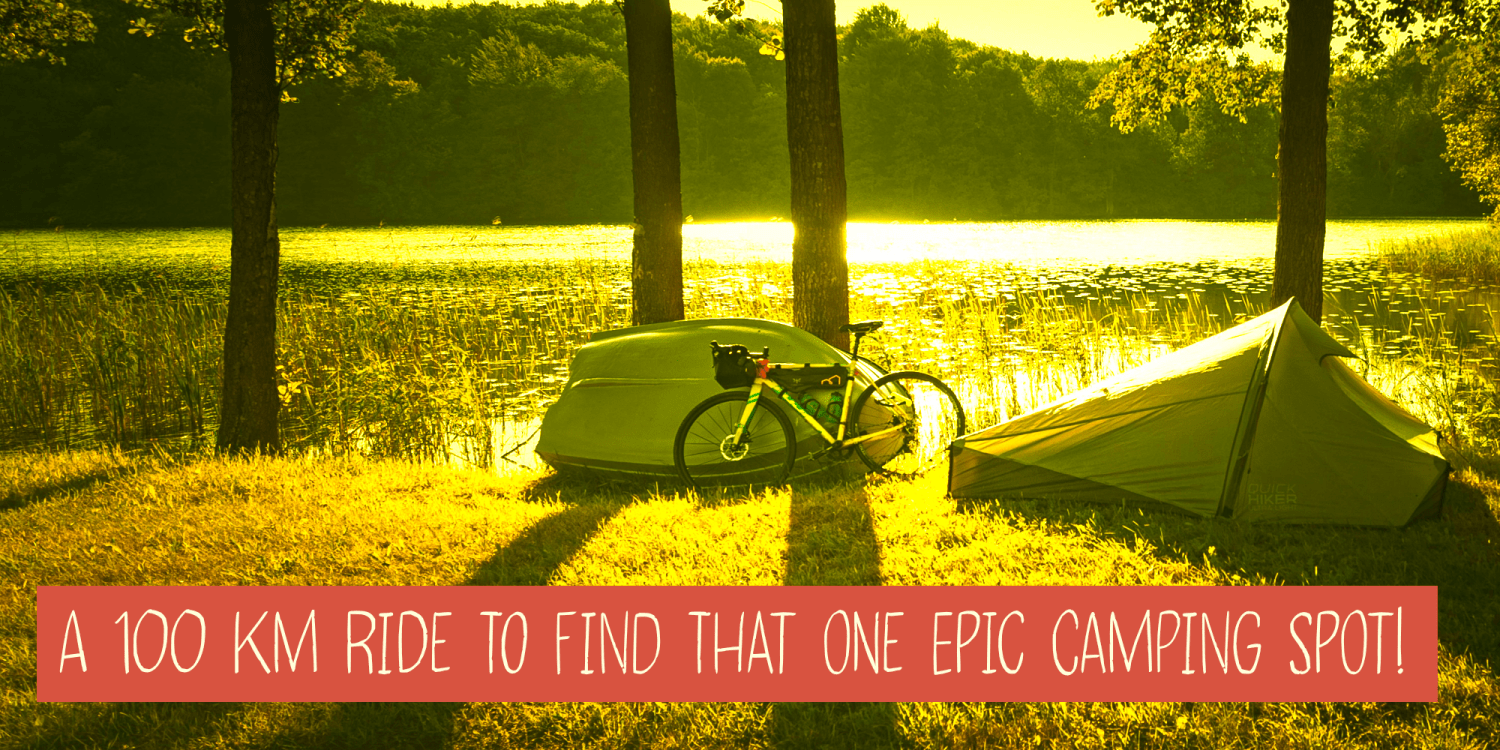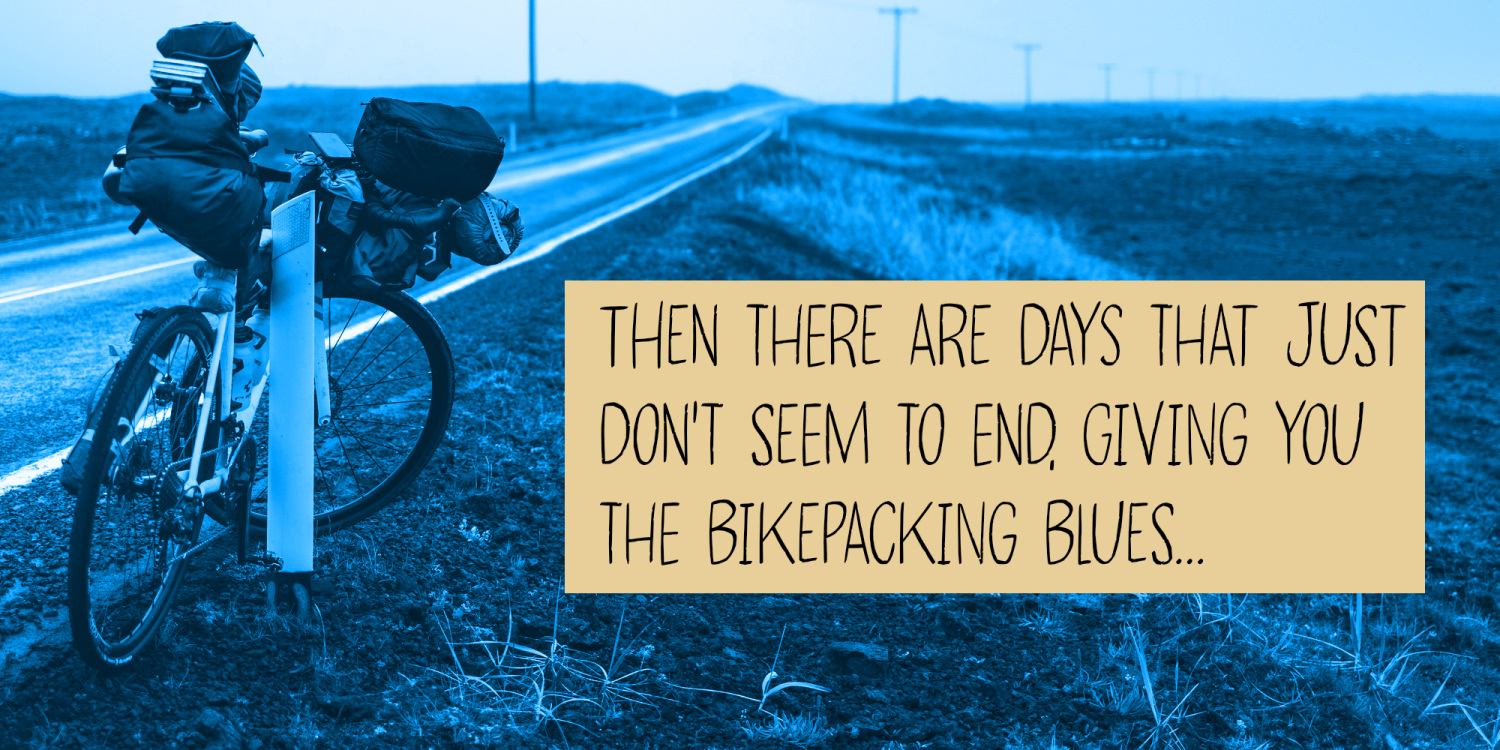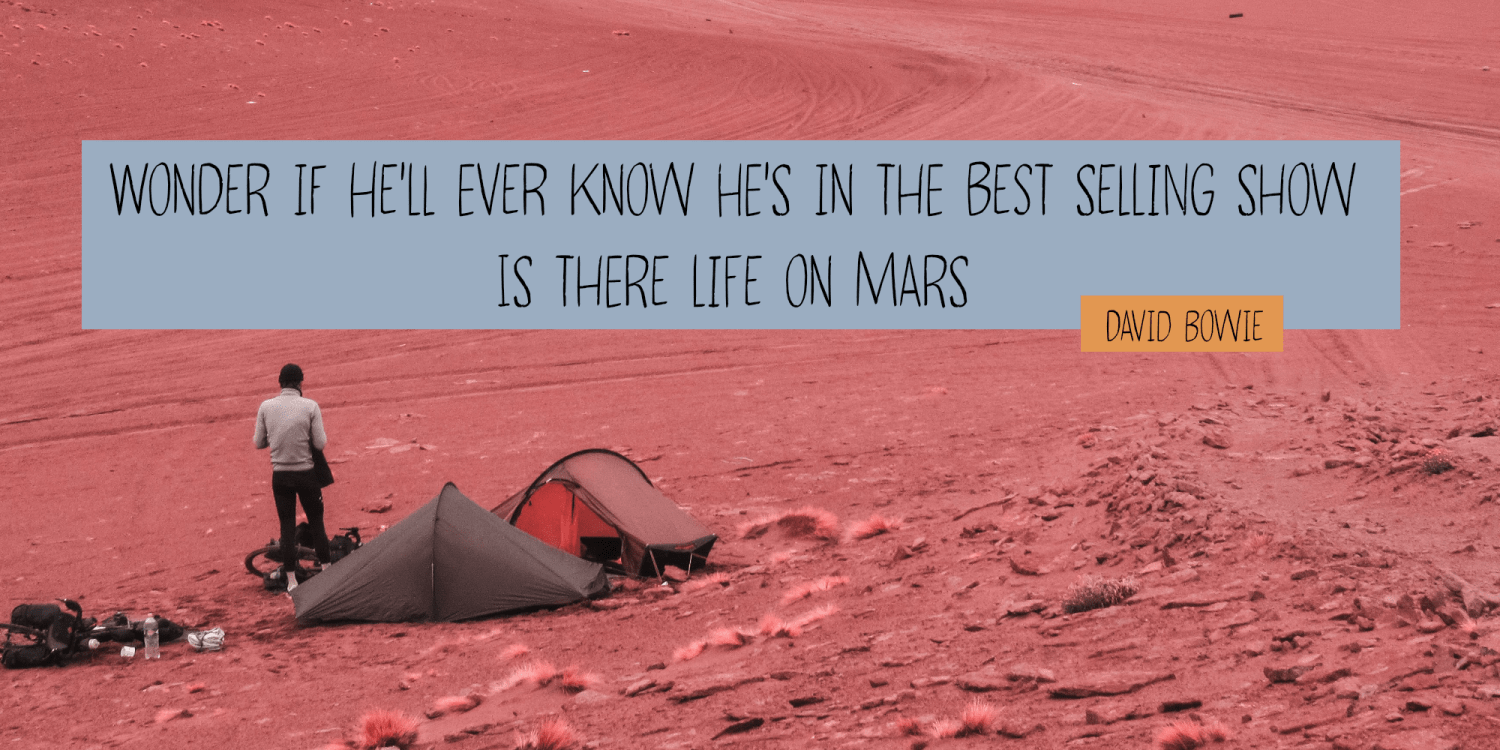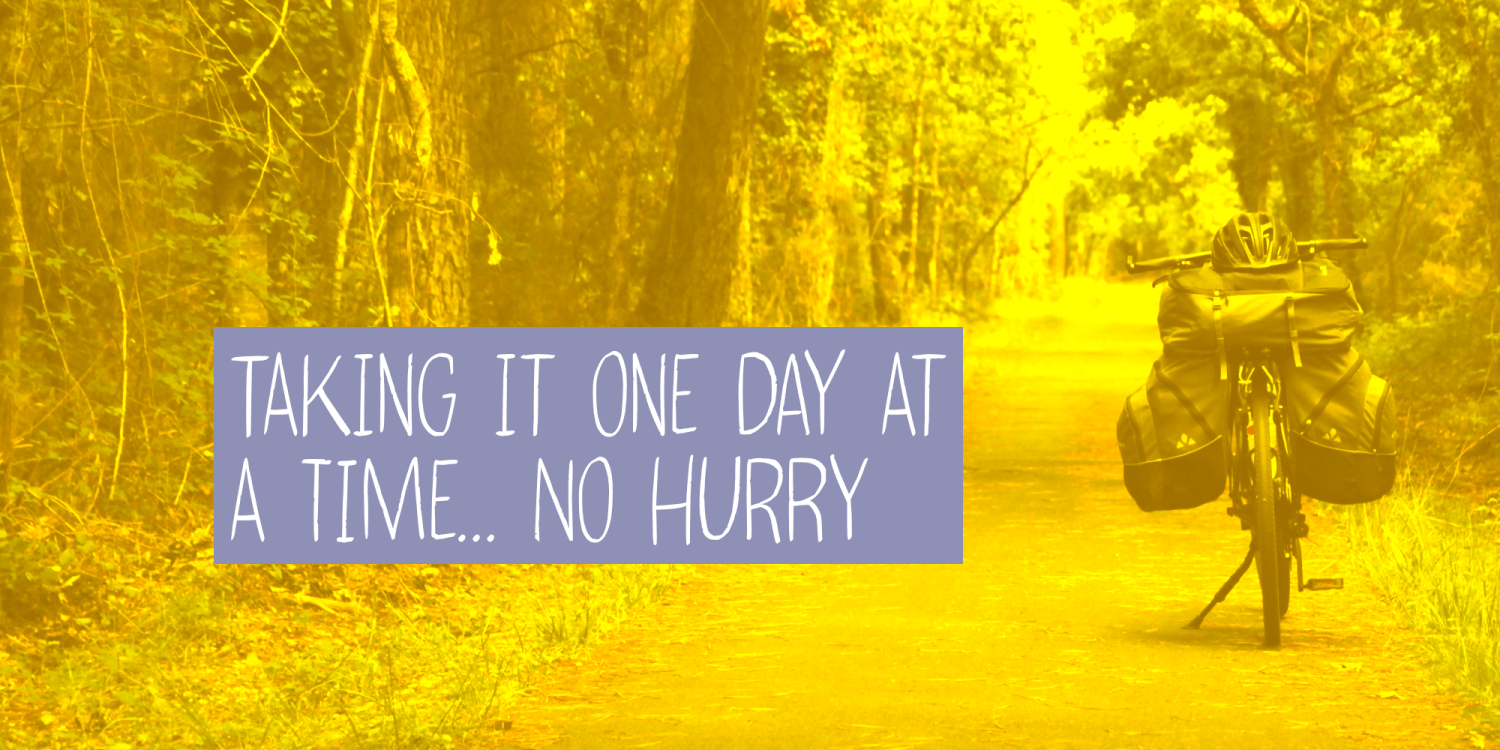
Bikepacker
Capture the spirit of adventure and discovery with the unique Bikepacker font, inspired by the cherished memories of cycling across Europe. This tall, slender typeface exudes a rustic charm, perfect for packaging designs and book cover art that demand a touch of wanderlust.
•     Rugged and slender design
•     Perfect for packaging and book covers
•     Includes alternate characters for dynamic typography
Embark on your own creative journey with the Bikepacker font—bringing stories of exploration to life with each keystroke.